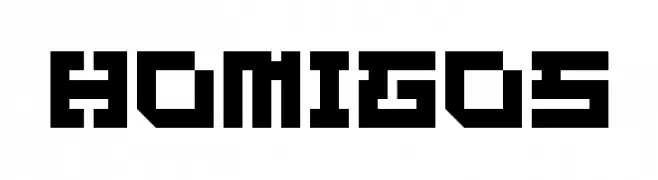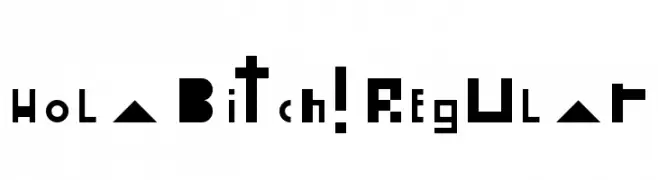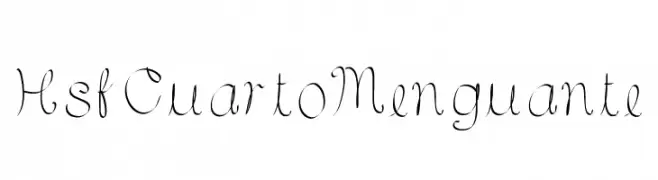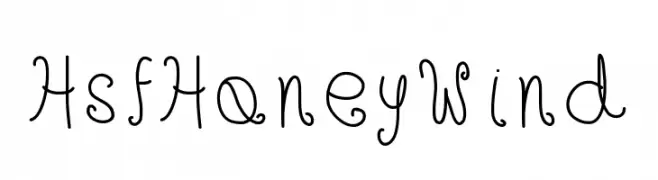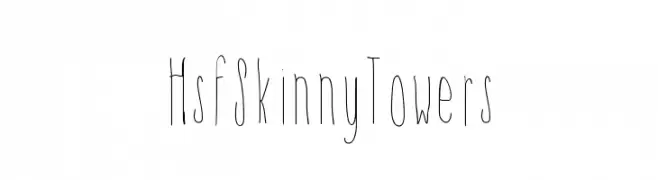
A playful, nature-inspired font with characters formed by leaf-like elements.
A decorative, nature-inspired italic font with a leaf-like pattern.
A bold, geometric font with angular letterforms and a modern style.
A bold, geometric font with a modern, futuristic aesthetic.
A playful, whimsical handwritten font with elegant loops and swirls.
A graceful, handwritten script font with elegant, flowing lines.
A whimsical, hand-drawn font with curly, looping strokes and a playful style.
A whimsical, sketch-like handwritten font with dynamic strokes.
A modern, ultra-thin, and elongated font with a minimalist design.
A bold, jagged font with a brush-like texture and dynamic style.